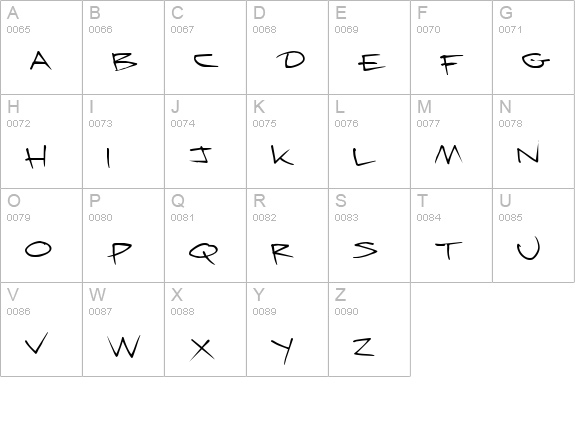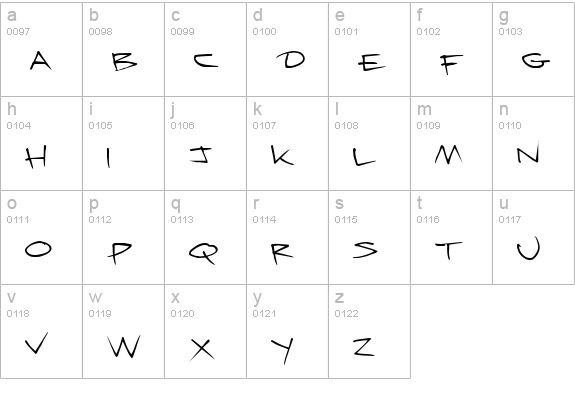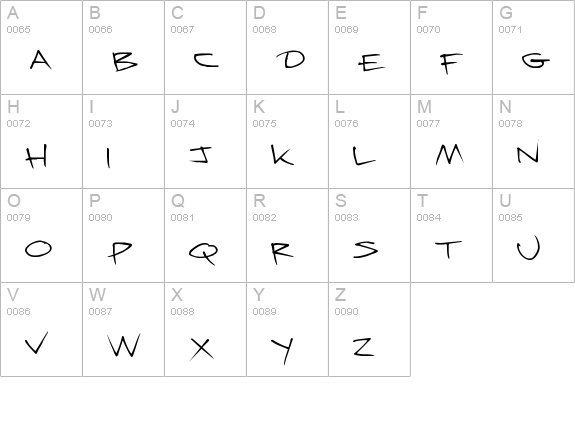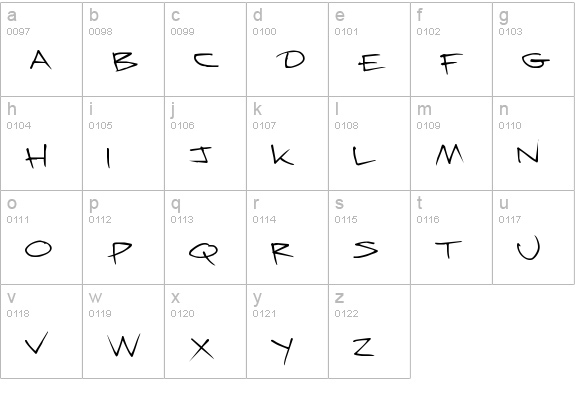
Krazy Nights Font Details
Krazy Nights font is a vibrant and playful typeface that is perfect for adding a touch of fun to your designs. With its quirky and unique style, this font is sure to make any project stand out. Whether you're working on invitations, posters, or social media graphics, Krazy Nights font is the perfect choice for adding a pop of personality. Best of all, Krazy Nights font is completely free to download at FontsMarket.com. This means you can enjoy all the creative possibilities this font has to offer without breaking the bank. So why wait? Download Krazy Nights font today and let your imagination run wild!